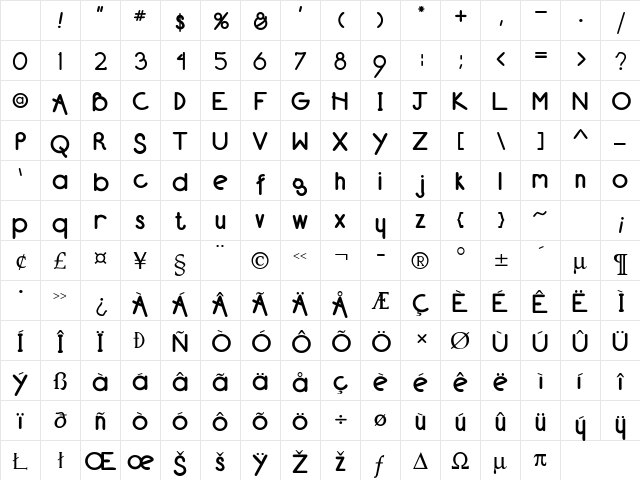
CamroseBlackSSK Regular
CamroseBlackSSK Family
CamroseBlackSSK Regular
CamroseBlackSSK Regular Font Preview
CamroseBlackSSK Regular Uppercase Preview
CamroseBlackSSK Regular Lowercase Preview
CamroseBlackSSK Regular Numeric Preview
CamroseBlackSSK Regular Character Map
Complete CamroseBlackSSK Regular glyph index. Displaying only characters natively supported by CamroseBlackSSK Regular font.
CamroseBlackSSK Regular Character Map
Design Context for CamroseBlackSSK
CamroseBlackSSK is a composed and adaptable typeface that performs quietly and consistently across a wide range of design contexts.